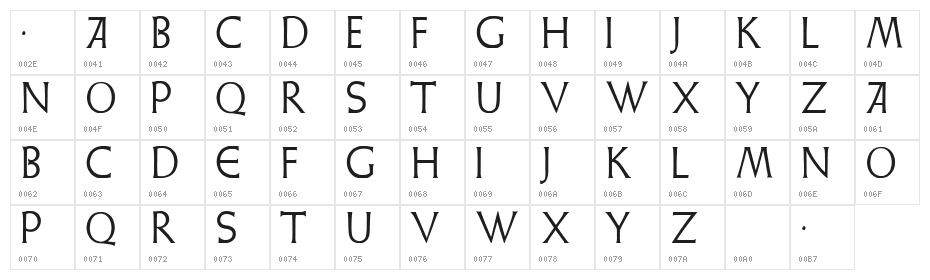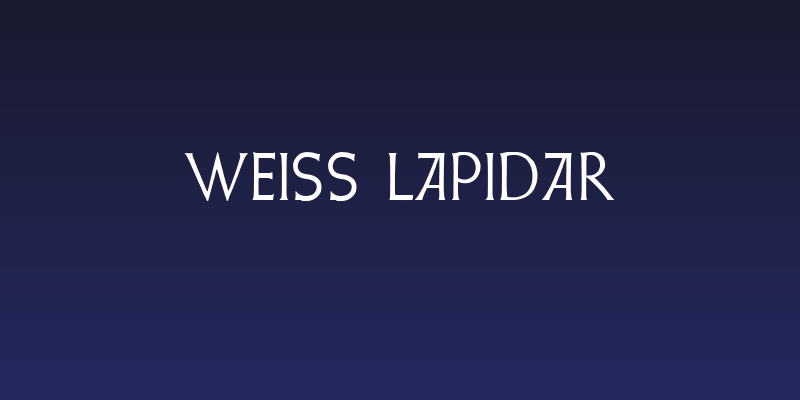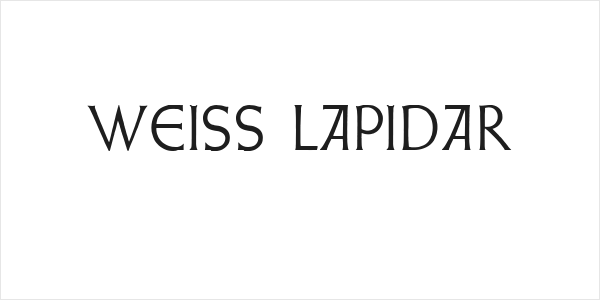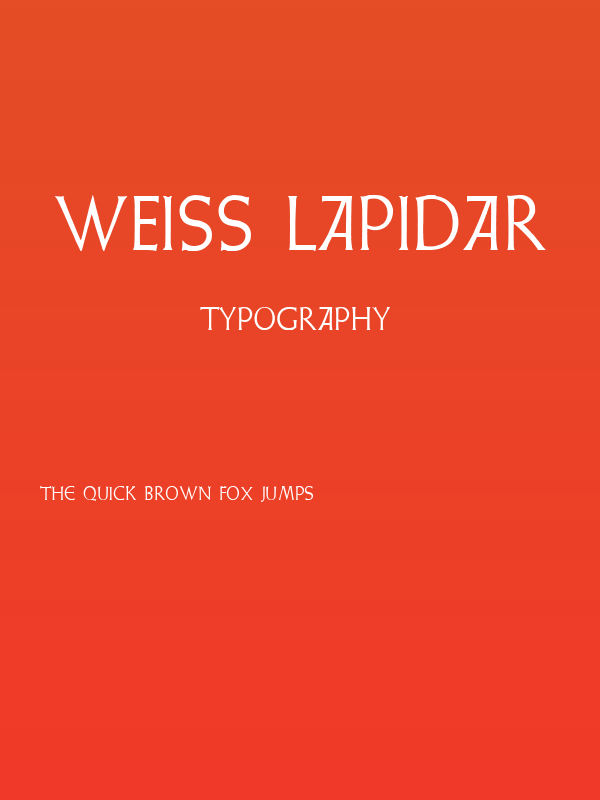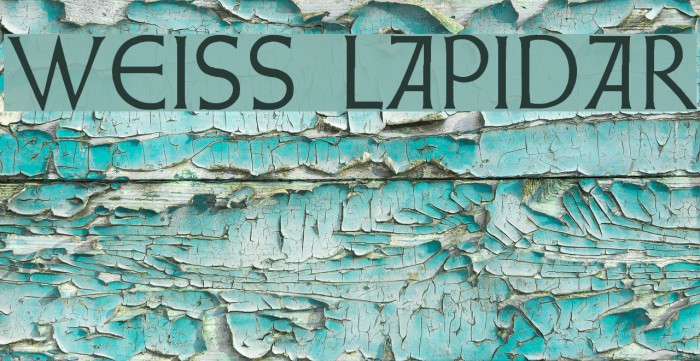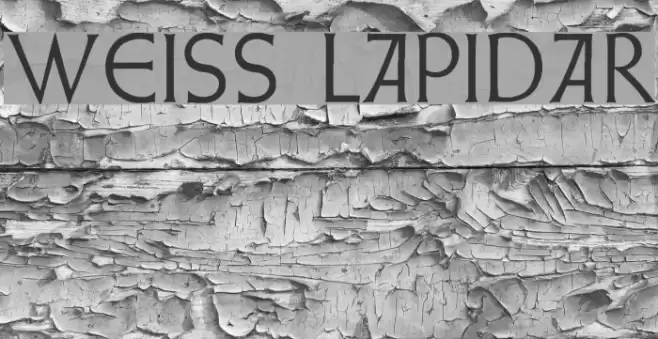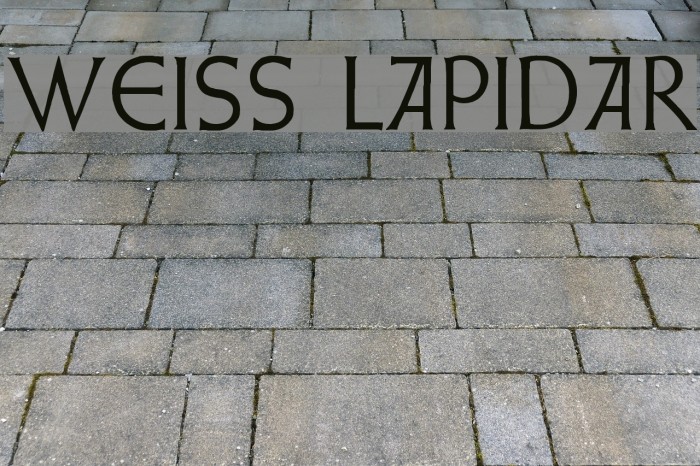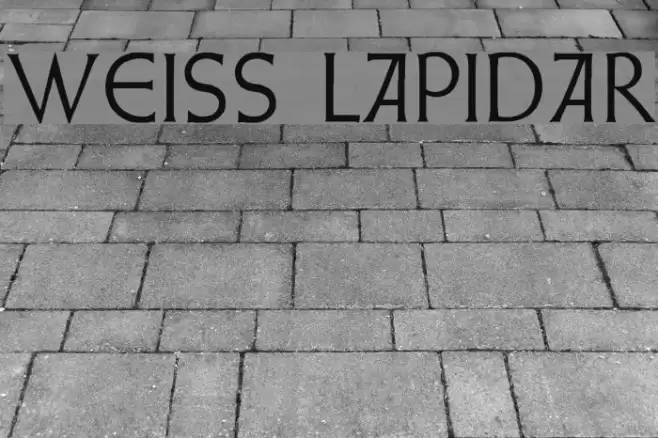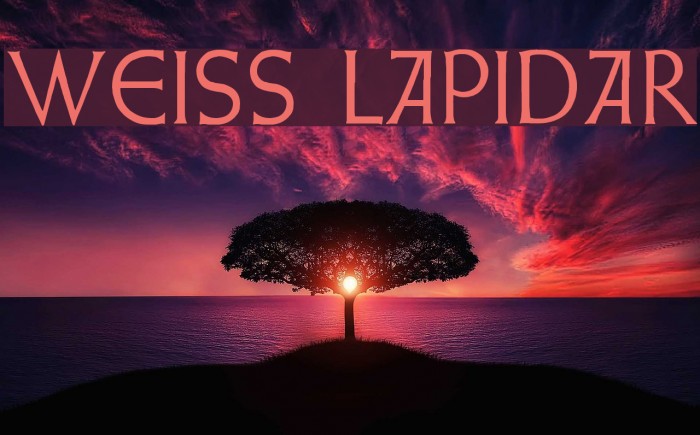
Weiss Lapidar Font
Weiss Lapidar Description
This font exhibits a classic and elegant serif style, characterized by its distinctively sharp and angular serifs. The letterforms are well-proportioned, with a moderate contrast between thick and thin strokes, giving it a refined and sophisticated appearance. The uppercase letters are particularly striking, with a sense of grandeur and formality. The lowercase letters maintain a consistent style, complementing the uppercase with their graceful curves and clean lines. This font is versatile, suitable for both traditional and modern applications, and can convey a sense of authority and professionalism.
| Overall Style | Classic |
| Use Case | Headlines, Editorial design, Branding |
| Proposed Projects | Ideal for formal invitations, book covers, editorial design, and branding projects that require a touch of elegance and tradition. |